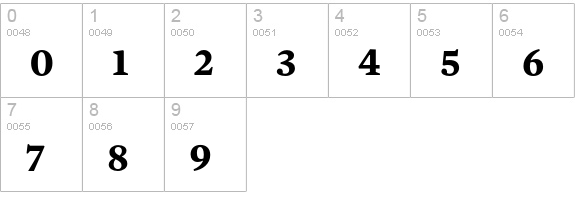
Mercury Text G2 Bold is a strong, high-contrast variant in the Mercury typeface family \xE2\x80\x94 well suited to headlines, attention-grabbing titles, and strong calls-to-action.
Mercury Text G2 Bold font is a versatile and modern typeface that exudes confidence and sophistication. Its bold weight makes it perfect for headlines, titles, and emphasis in any design project. The clean lines and sharp edges of this font give it a professional and polished look, making it a great choice for both print and digital applications. What's even better is that Mercury Text G2 Bold font is available for free download at FontsMarket.com. This means you can easily access and use this high-quality font without any cost, making it a valuable addition to your font collection. Whether you're working on branding materials, advertising campaigns, or editorial layouts, Mercury Text G2 Bold font will elevate your designs and make a lasting impression on your audience.